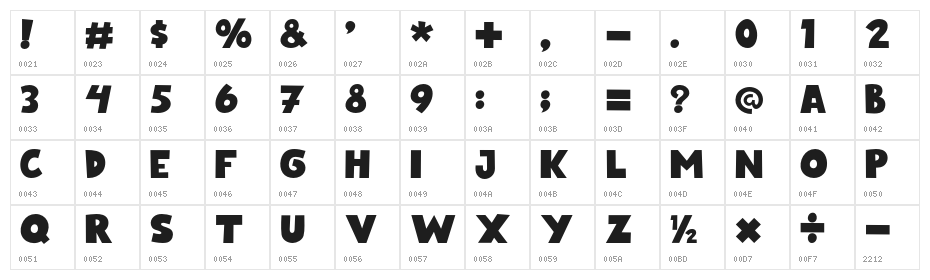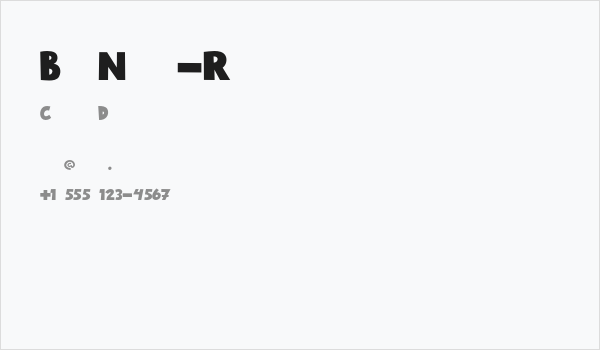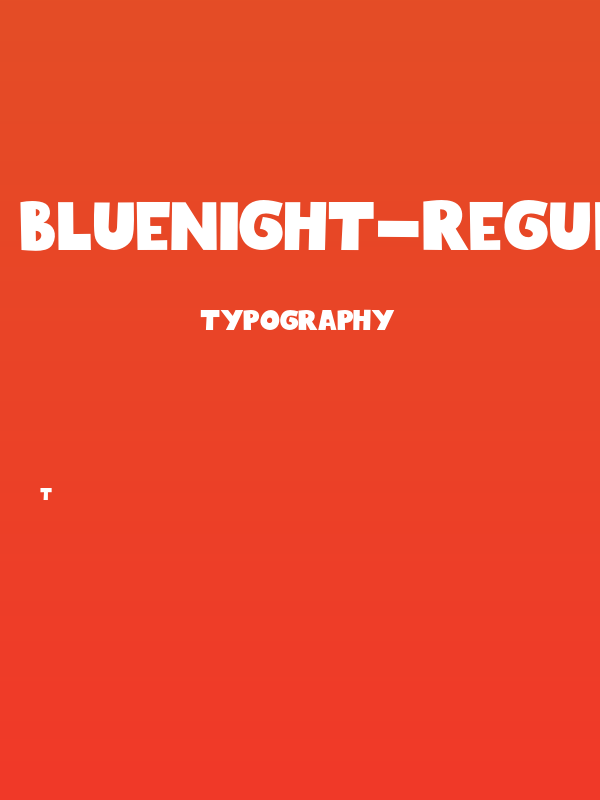
BlueNight-Regular Font
BlueNight-Regular Description
This font features bold, playful characters with a strong presence. The uppercase letters are robust and slightly rounded, giving them a friendly yet assertive appearance. The numbers and special characters maintain this bold style, ensuring consistency across all glyphs. The overall design is modern and eye-catching, making it suitable for projects that require a strong visual impact. The font's unique style is characterized by its thick strokes and slightly condensed form, which adds to its distinctive look.
| Proposed Projects | Ideal for posters, headlines, branding, and any design that requires a bold statement. |